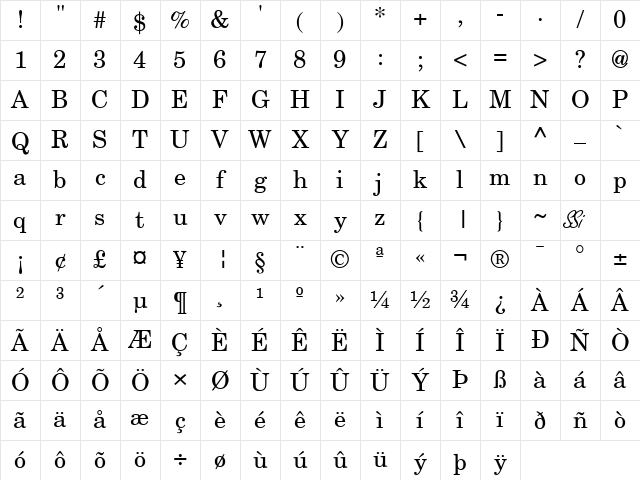
Century Schoolbook Reprise SSi Regular
Century Schoolbook Reprise SSi Family
Design Context for Century Schoolbook Reprise SSi
Century Schoolbook Reprise SSi is a composed and adaptable typeface that performs quietly and consistently across a wide range of design contexts.